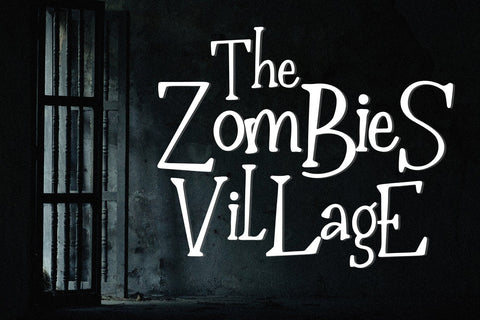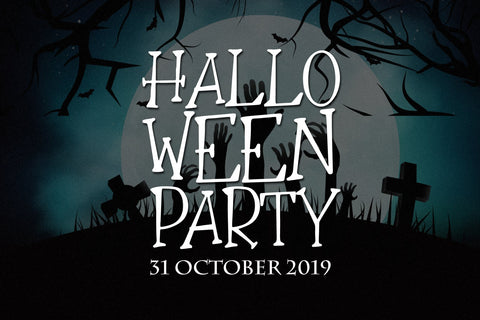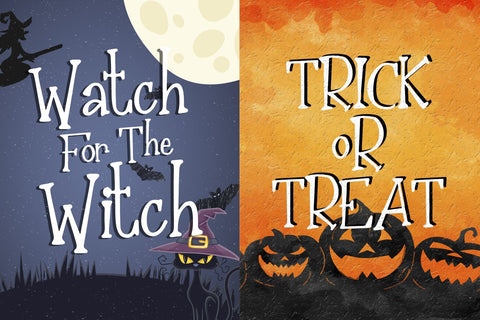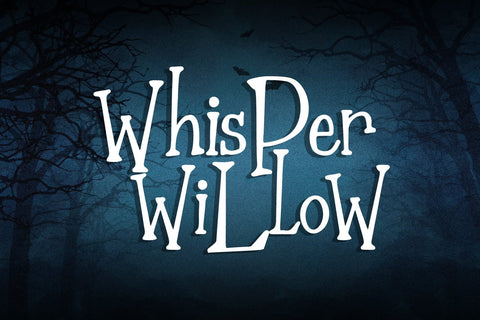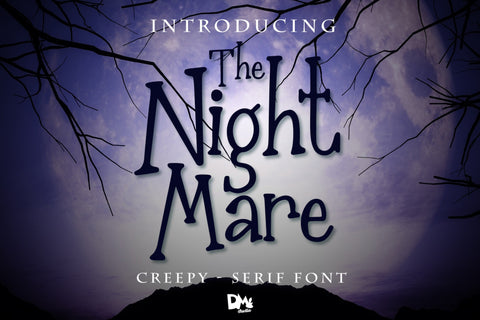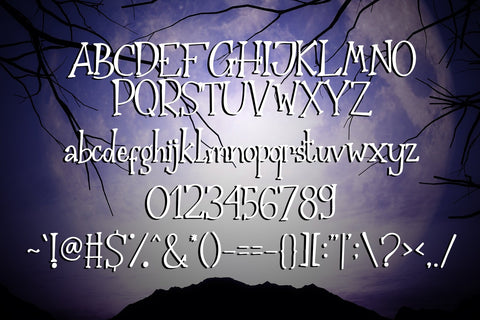
The Nightmare - Creepy Serif Font
Great choice for any display project,Halloween card, t-shirt,pillow,crafting,and much more!
The Nightmare Features :
• Uppercase
• Lowercase
• Numeric
• Symbols
• Multilingual